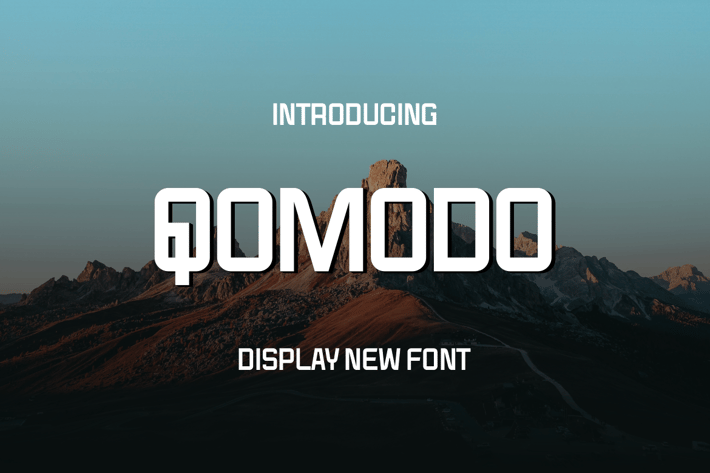
QOMODO Font
Introducing our new product QOMODO Font - Modern Font
QOMODO Font - Modern Font is a bold and authentic display font. The font is suitable for any branding project like logo, t-shirt printing, esport, and many more. outstanding in a wide range of contexts.